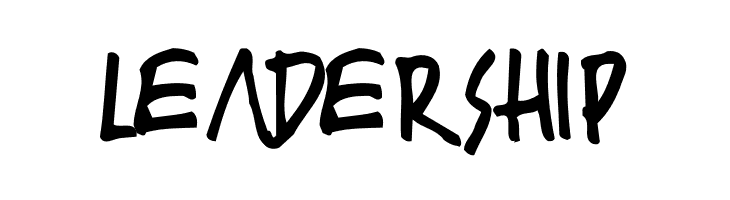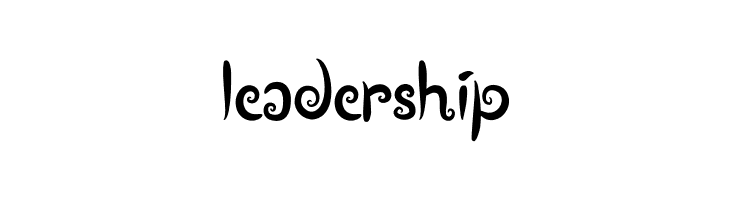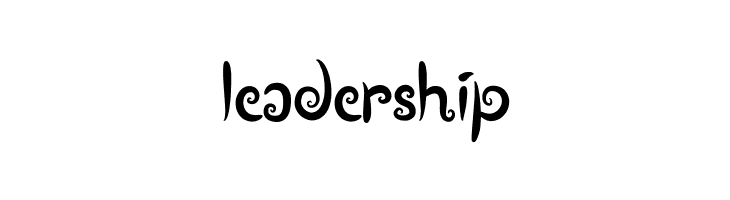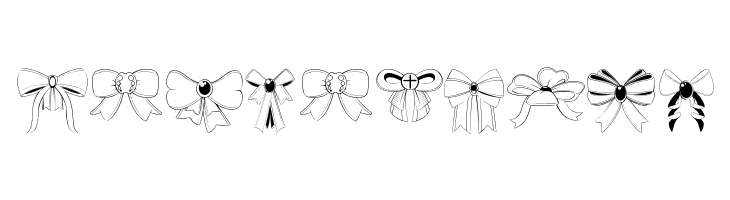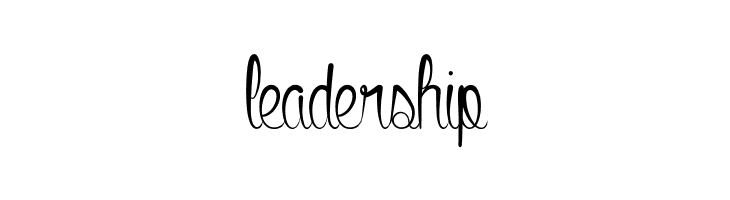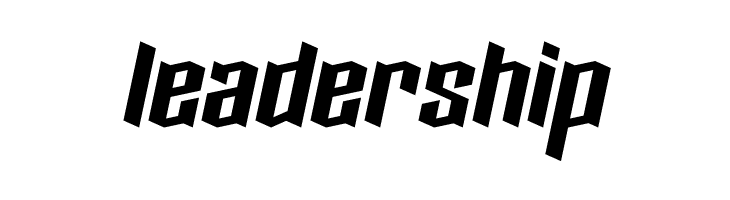
A bold, textured script font with a vintage, hand-painted style.
A dynamic and flowing script font with elegant cursive letterforms.
An elegant and flowing script font with sophisticated, cursive letterforms.
A playful, handwritten font with a lively and bouncy style.
A bold, outlined font with a playful, bouncy style and a collegiate vibe.
A playful, casual handwritten font with smooth, rounded edges and consistent line weight.
A bold, distressed font with a vintage, rustic aesthetic.
A bold, geometric font with a three-dimensional layered outline effect.
A bold, textured font with a vintage, handcrafted appearance.
A bold, playful font with a retro vibe and rounded characters.
A whimsical, decorative font with playful curls and swirls.
A whimsical and decorative font with playful curls and swirls.
A bold, handwritten font with a casual and dynamic style.
Art Nouveau-inspired ornamental designs with floral and geometric motifs.
A decorative dingbat font composed of assorted hand-drawn bows.
A flowing, cursive font with elegant, sweeping strokes and a handwritten appearance.
A bold, rounded font with a modern and playful style.
A modern, geometric font with rounded edges and consistent stroke widths.
A modern, minimalist font with thin lines and geometric influences.
A clean, geometric font with rounded edges and consistent line weights.
A bold, playful handwritten font with thick, rounded strokes.
A whimsical, artistic font with elongated, curvy strokes and elegant swirls.
A whimsical, handwritten font with elegant flourishes and playful curves.
The image contains box-like symbols, not a valid font.
A playful, hand-drawn font with a bold and informal style.
A playful, handwritten font with a whimsical and flowing style.
A playful, hand-drawn font with thin, flowing lines and a whimsical style.
A flowing, cursive italic font with interconnected letters and a delicate, elegant style.
A flowing, elegant script font with a handwritten appearance.
A bold, decorative font with abstract distortions and artistic cutouts.
A dynamic, handwritten font with expressive, brush-like strokes.
A bold, angular font with a dynamic slant and geometric style.
A playful, hand-drawn outlined font with a quirky, cartoonish style.
A whimsical, hand-drawn style font with playful, irregular strokes.
A playful, casual handwritten font with a quirky and dynamic style.